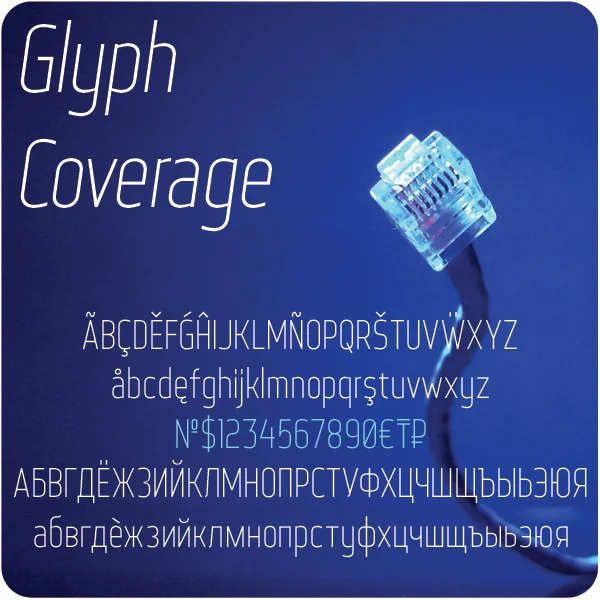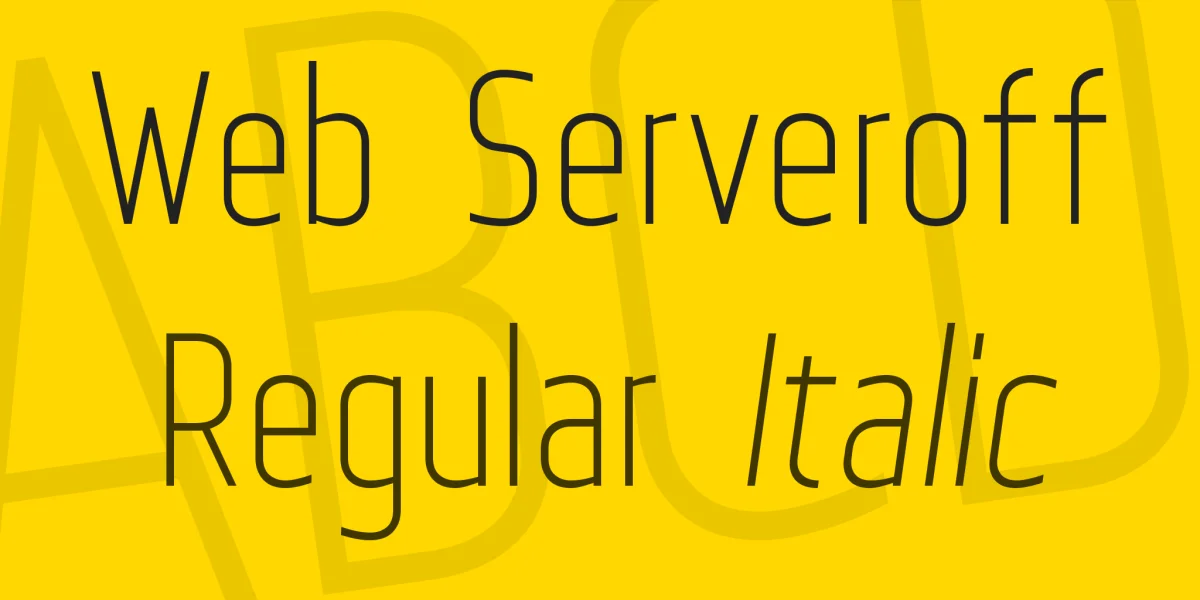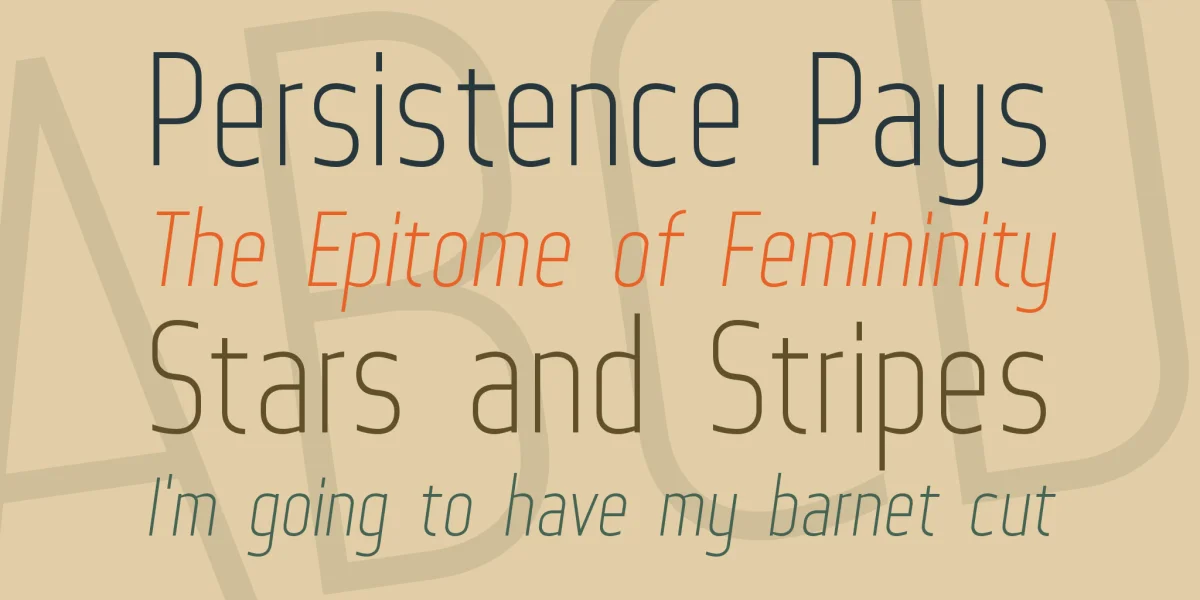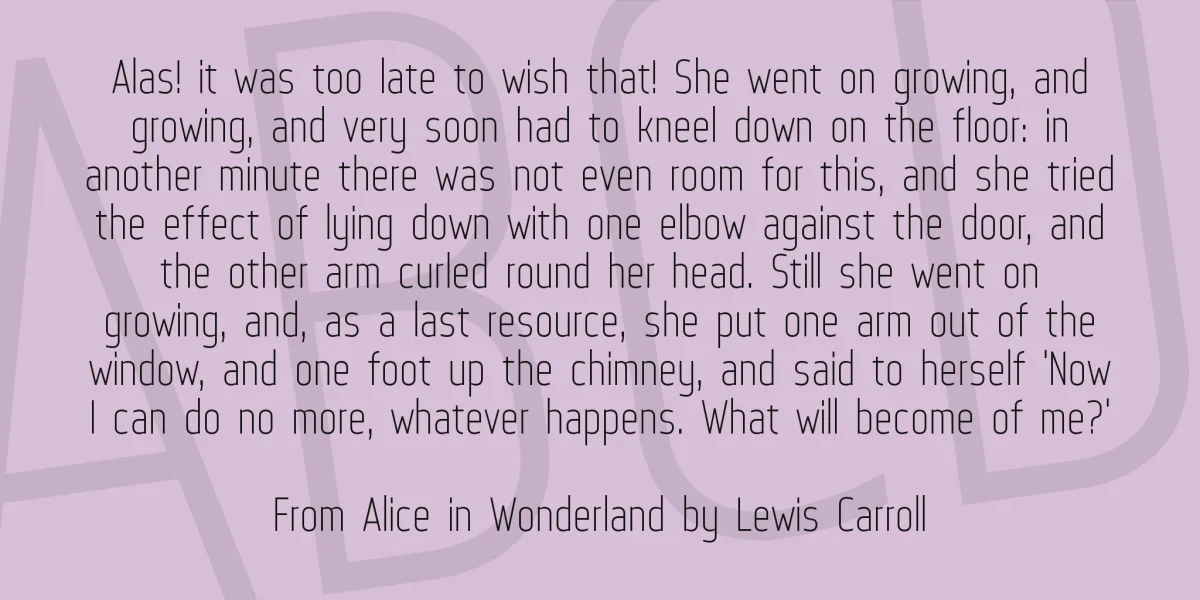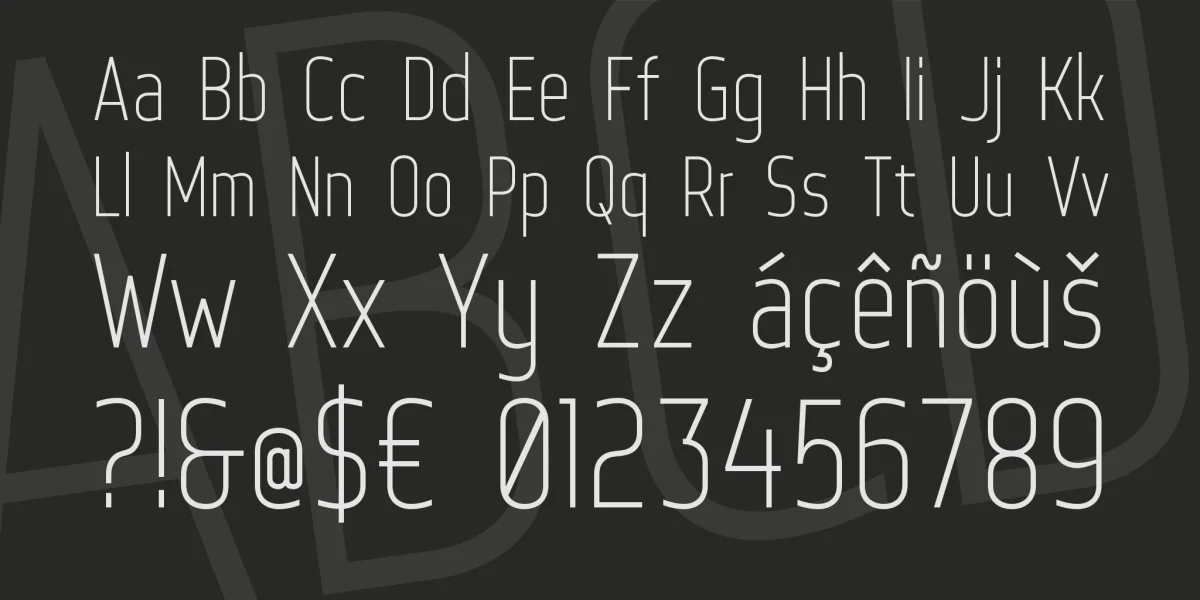
Say hi to "Web Serveroff", our very own absolutely free web font developed specifically for modern website and blog designs! Clean, Modern, Legible, Unique. And the best part is...you are free to use this font for any purpose, including website templates, cms themes or software! WebHostingGeeks.com